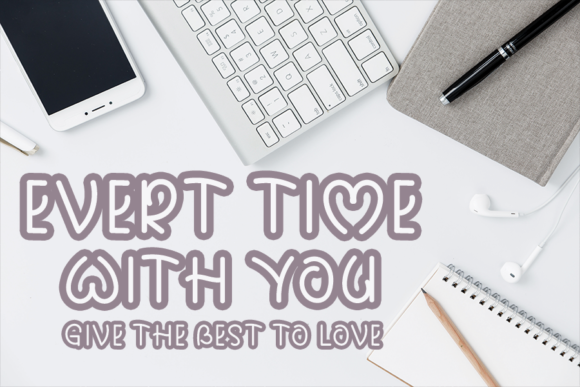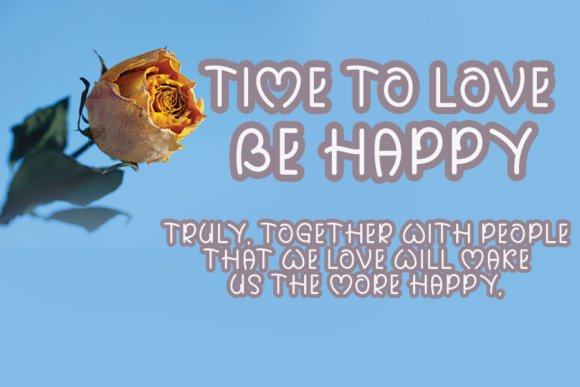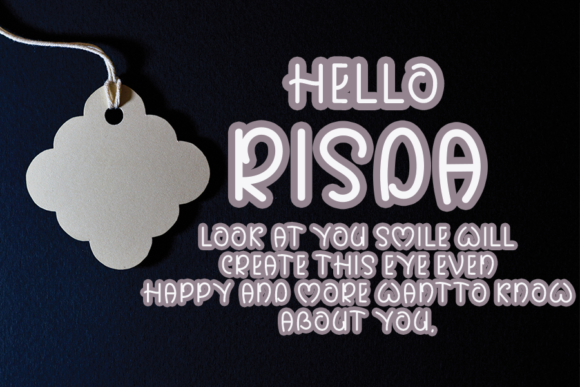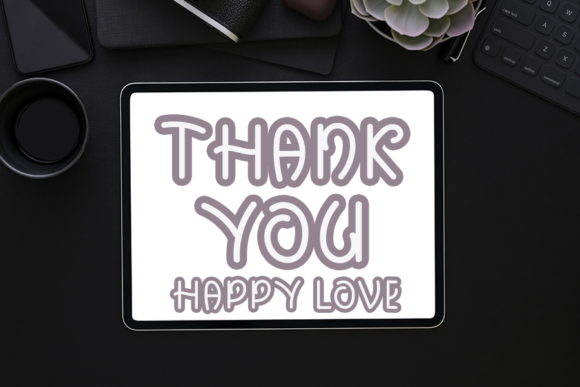
Love Moment Font
About Love Moment Font
Love Moment is a gorgeous handwritten font, designed to easily become a true favorite. Be creative with its authentic and unique style, and use it to brighten up all your upcoming crafting projects.